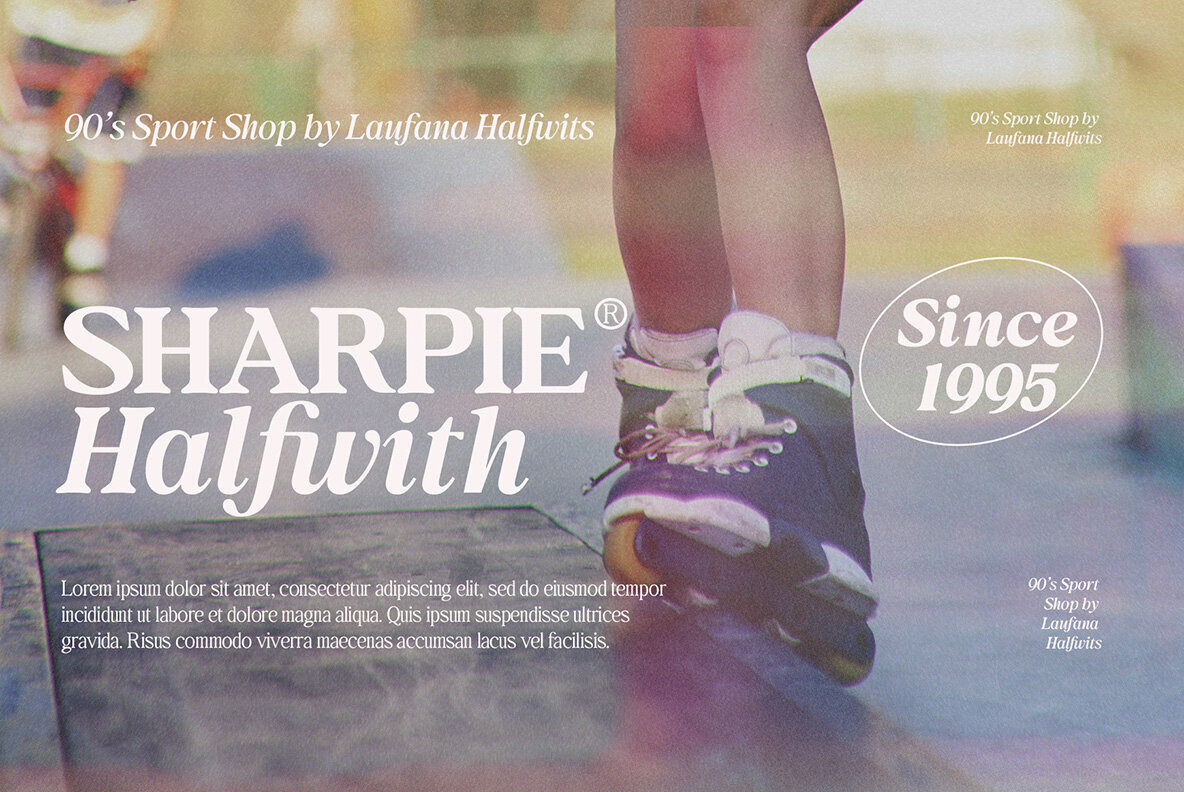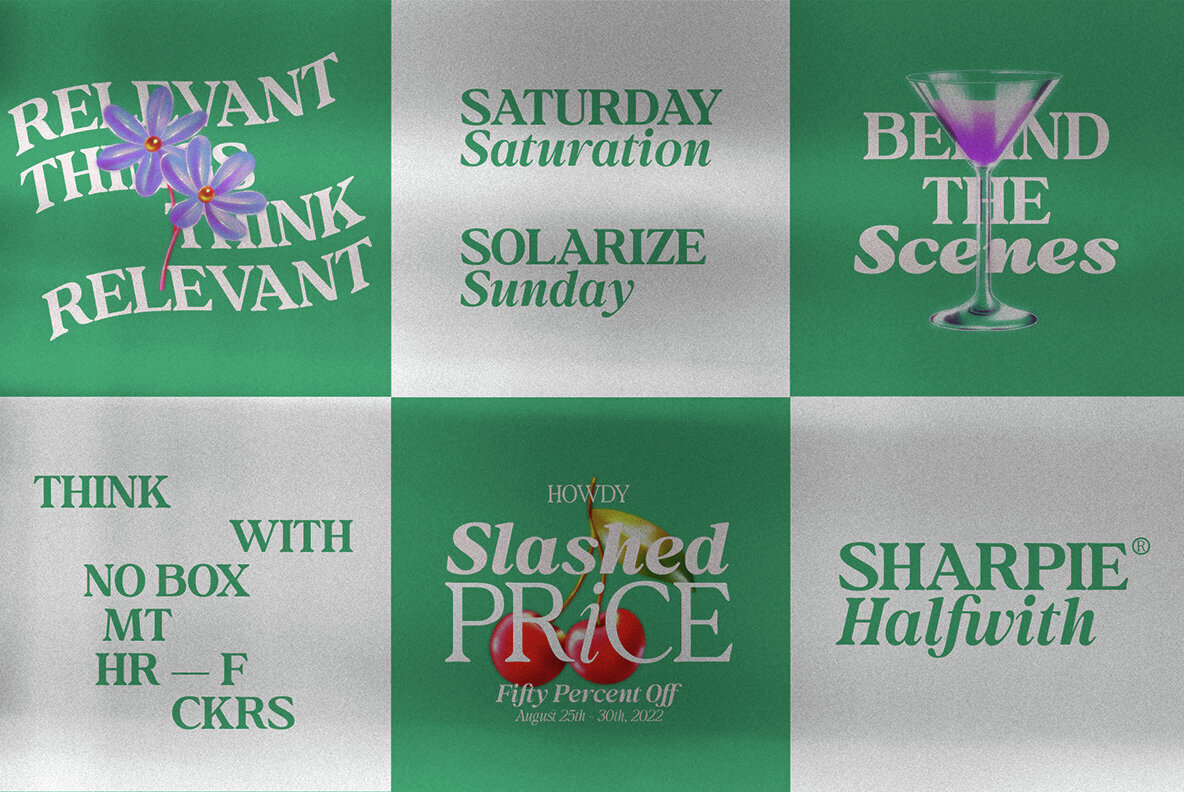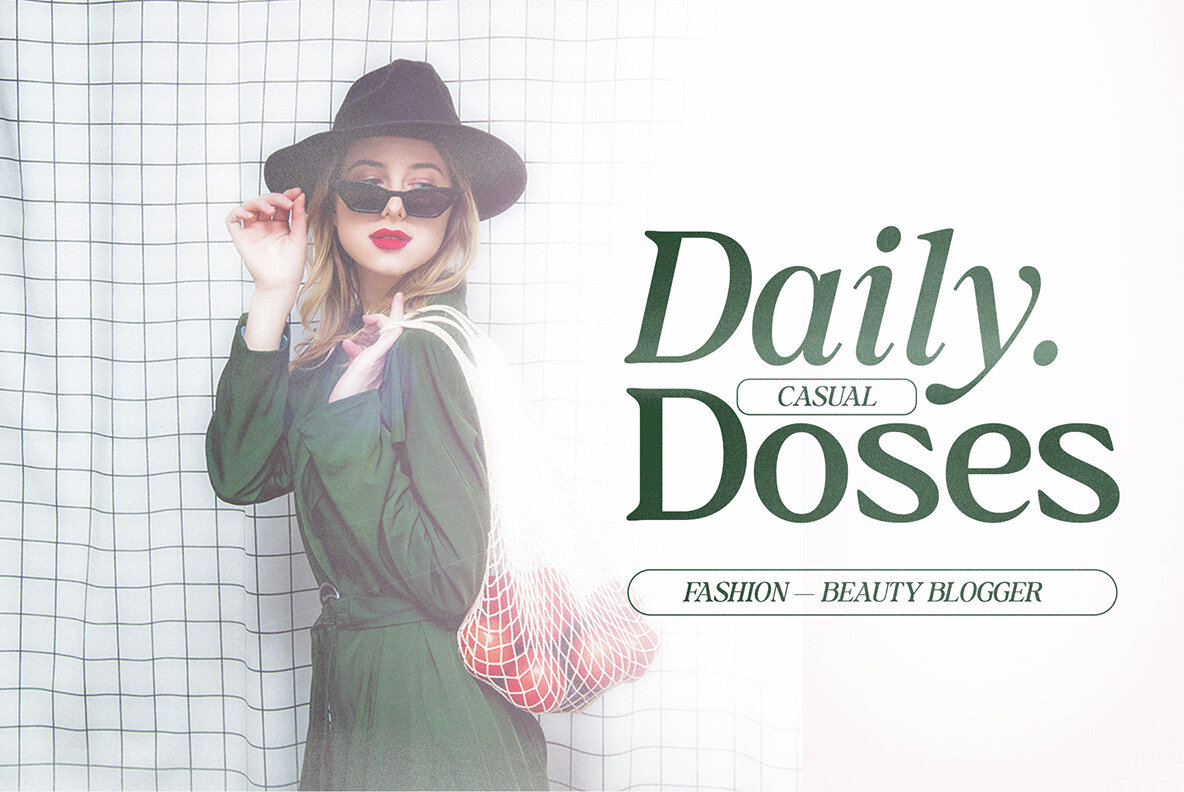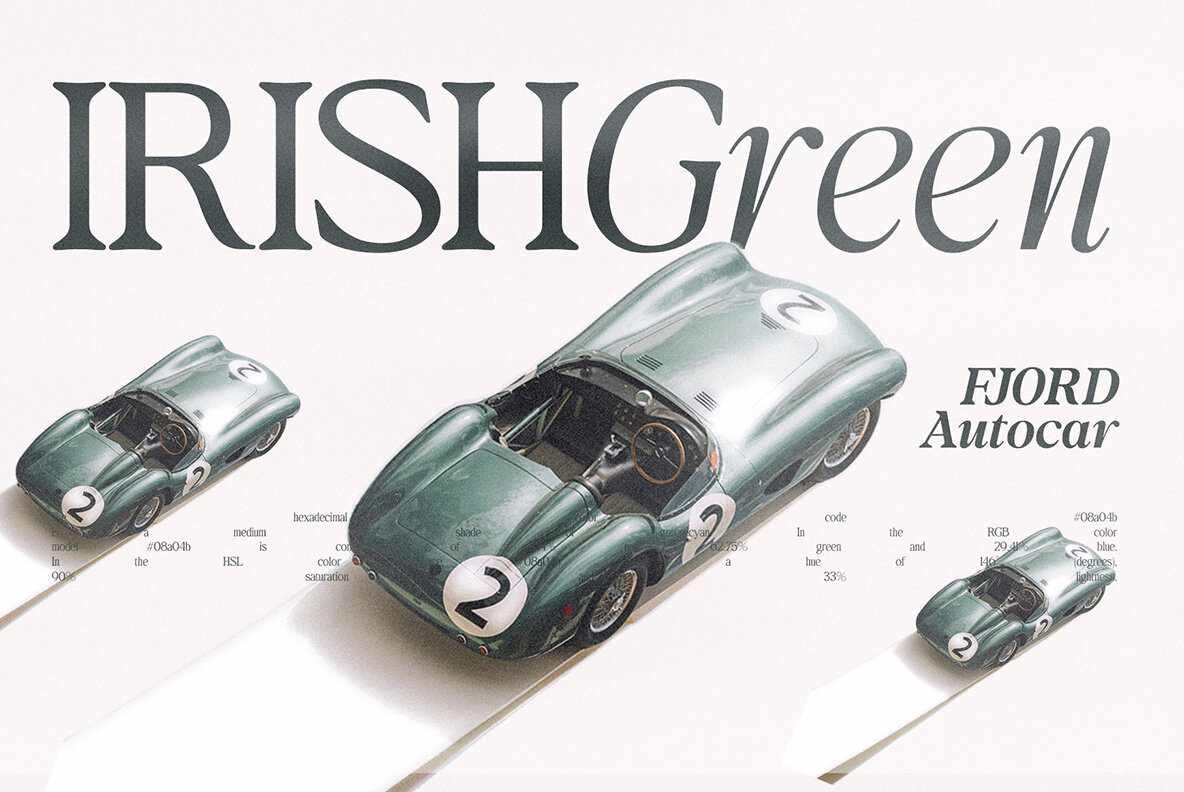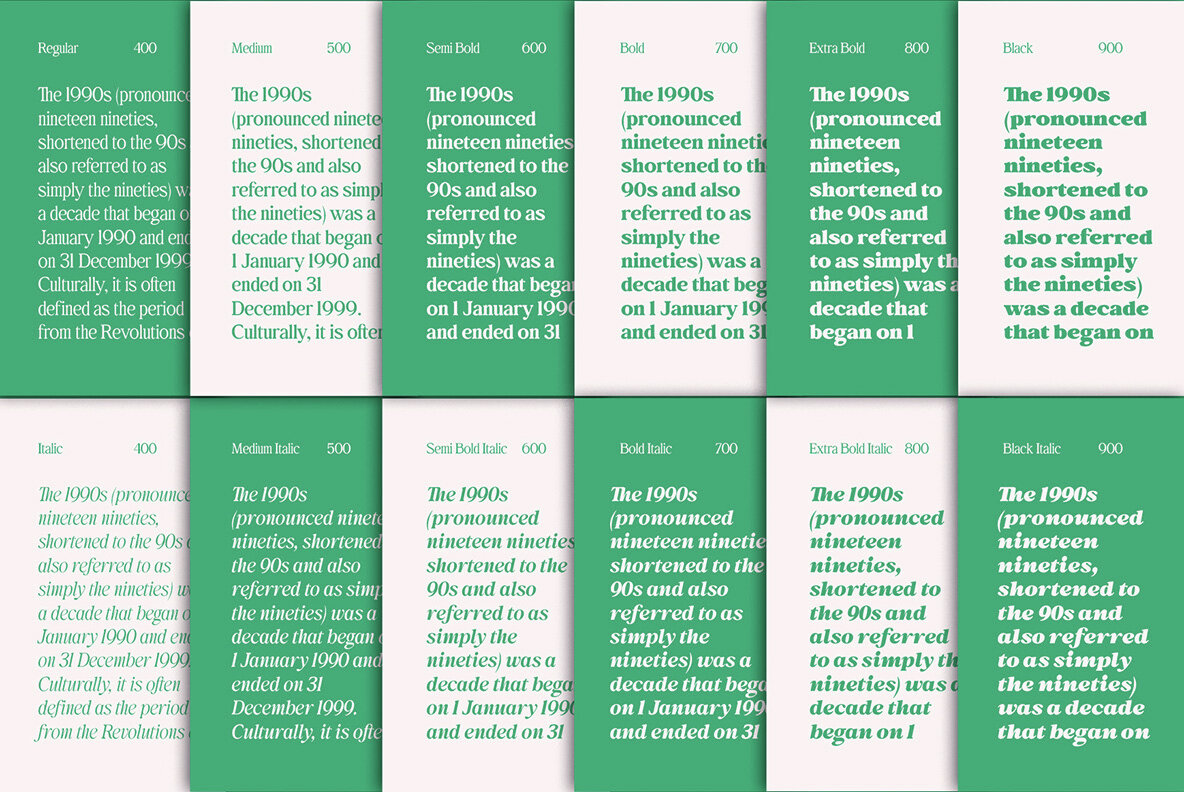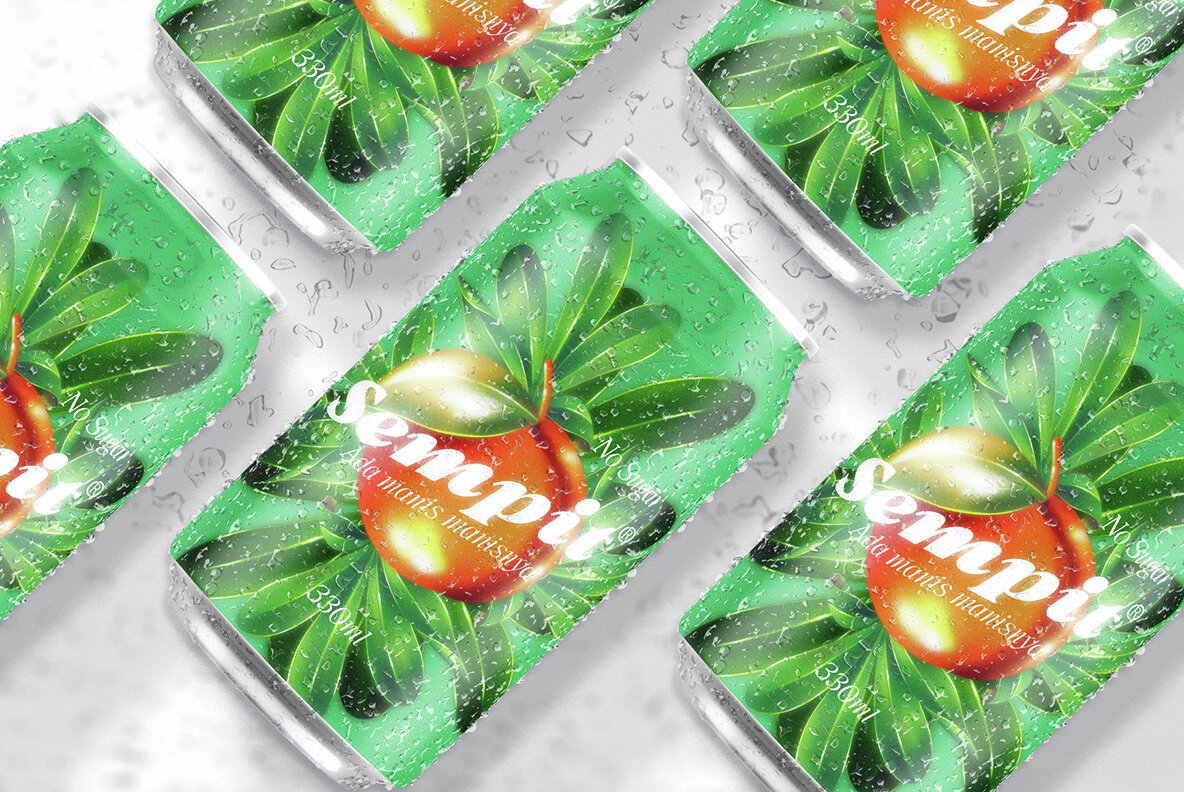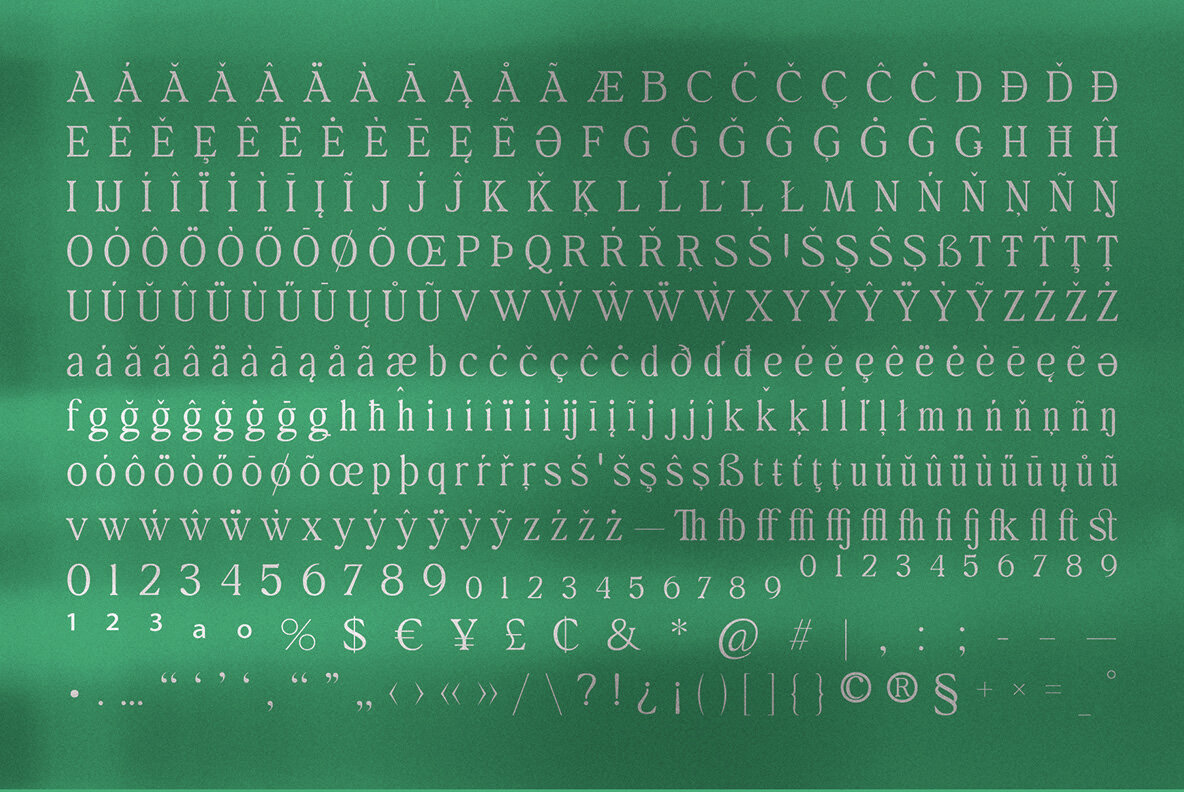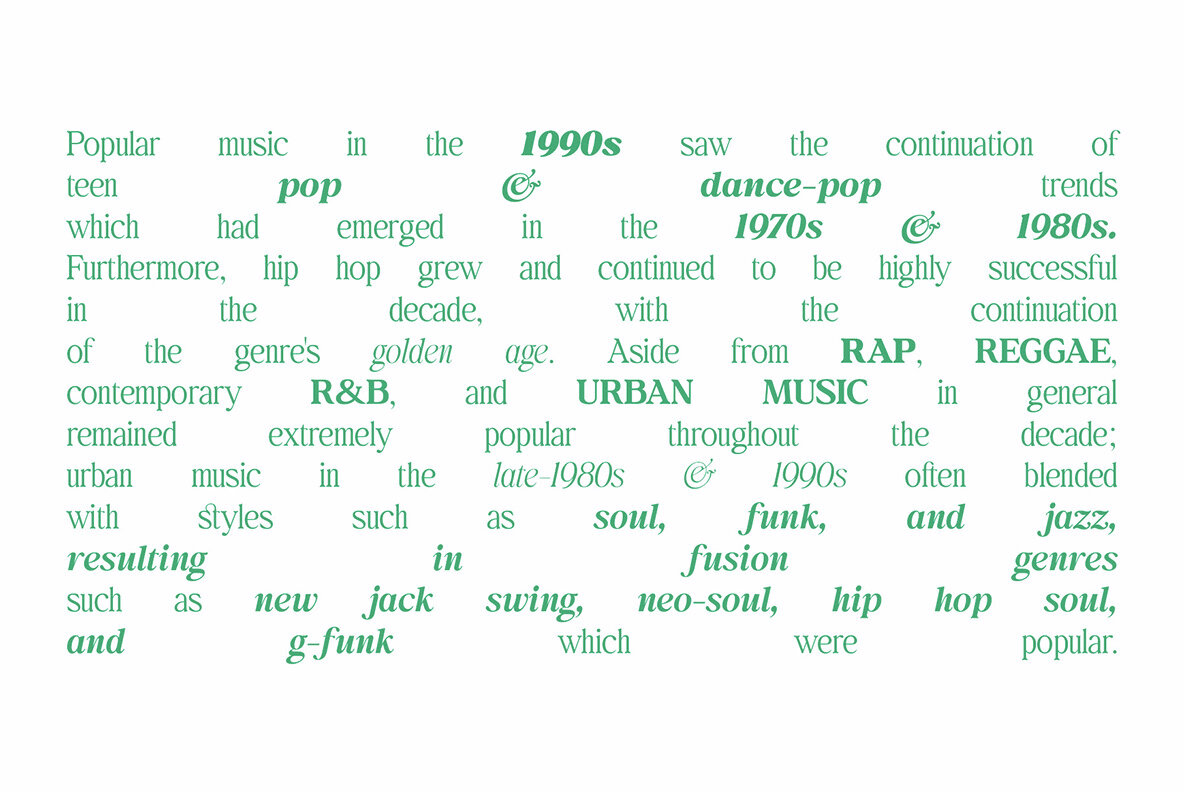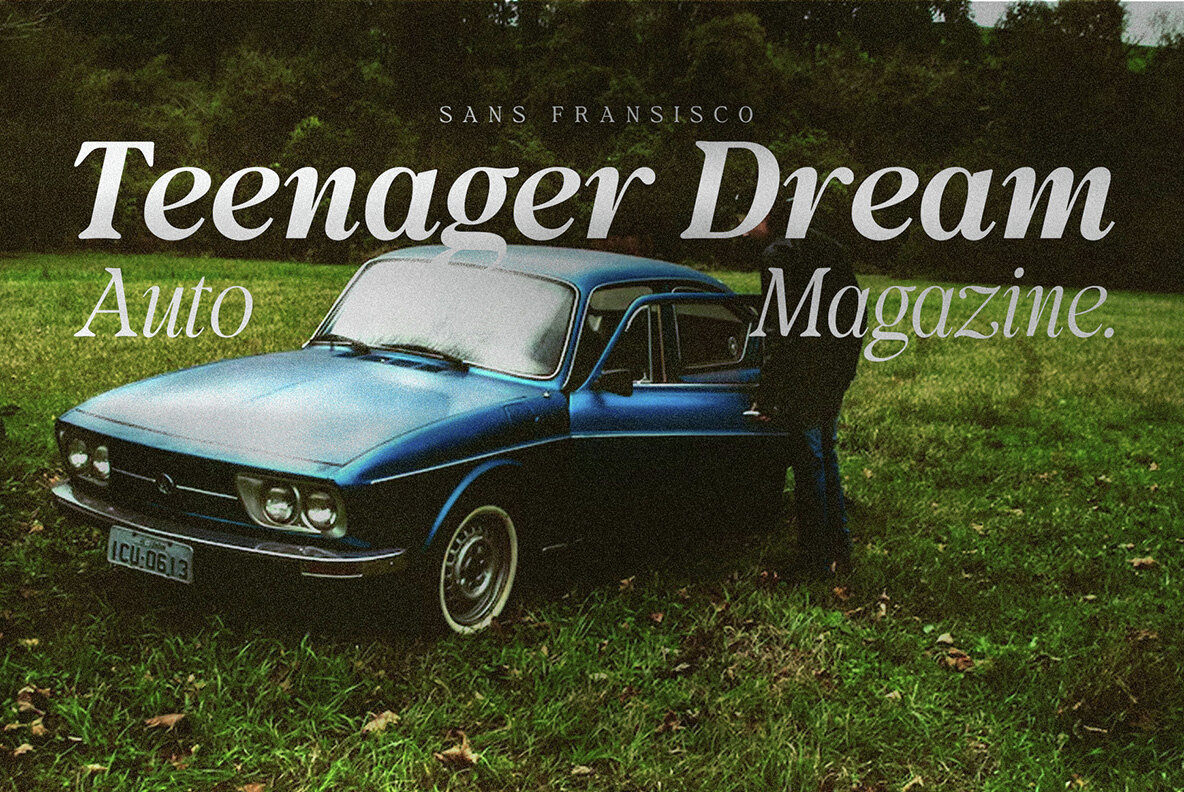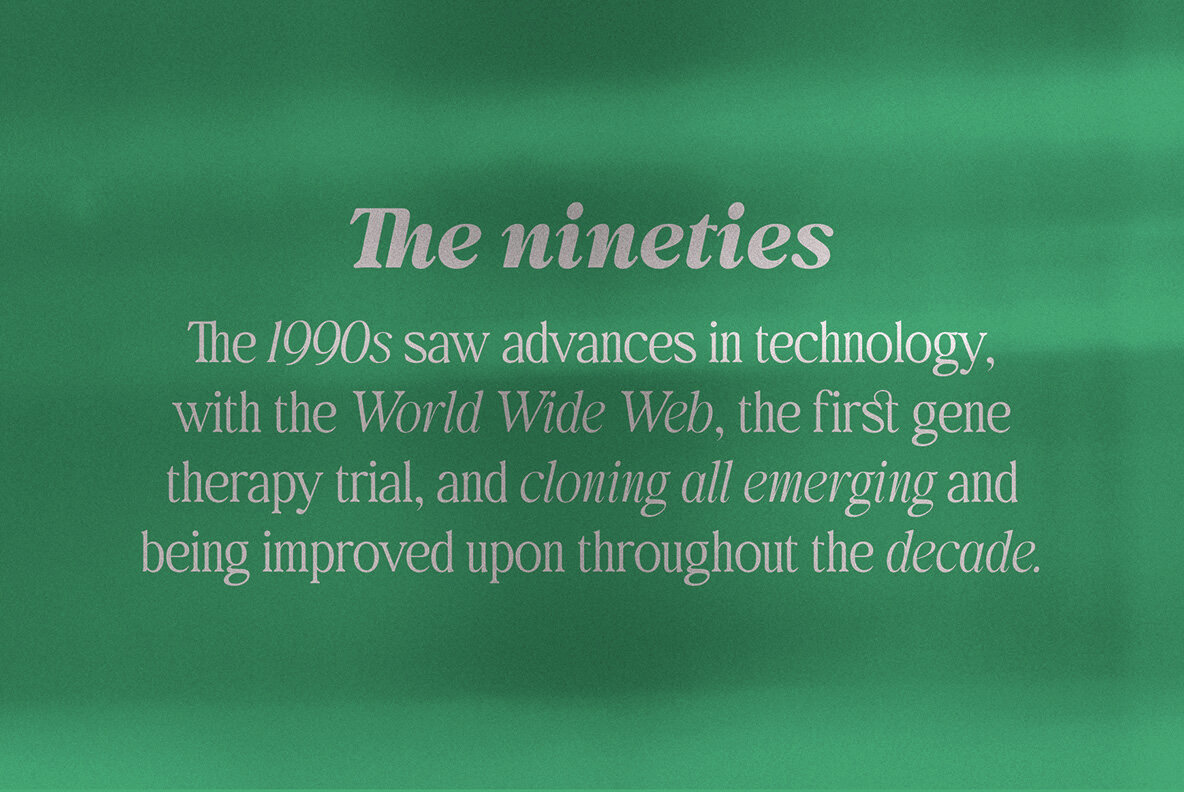
Behind the Nineties Font
This font is a serif typeface with a high level of contrast, sharp terminal finishes, and a blend of traditional and modern touches. Its distinct elegance and refined character shapes make it suitable for both display and editorial uses. Designers can leverage this style for high-impact headlines or subtle, sophisticated text that requires an air of classic timelessness.